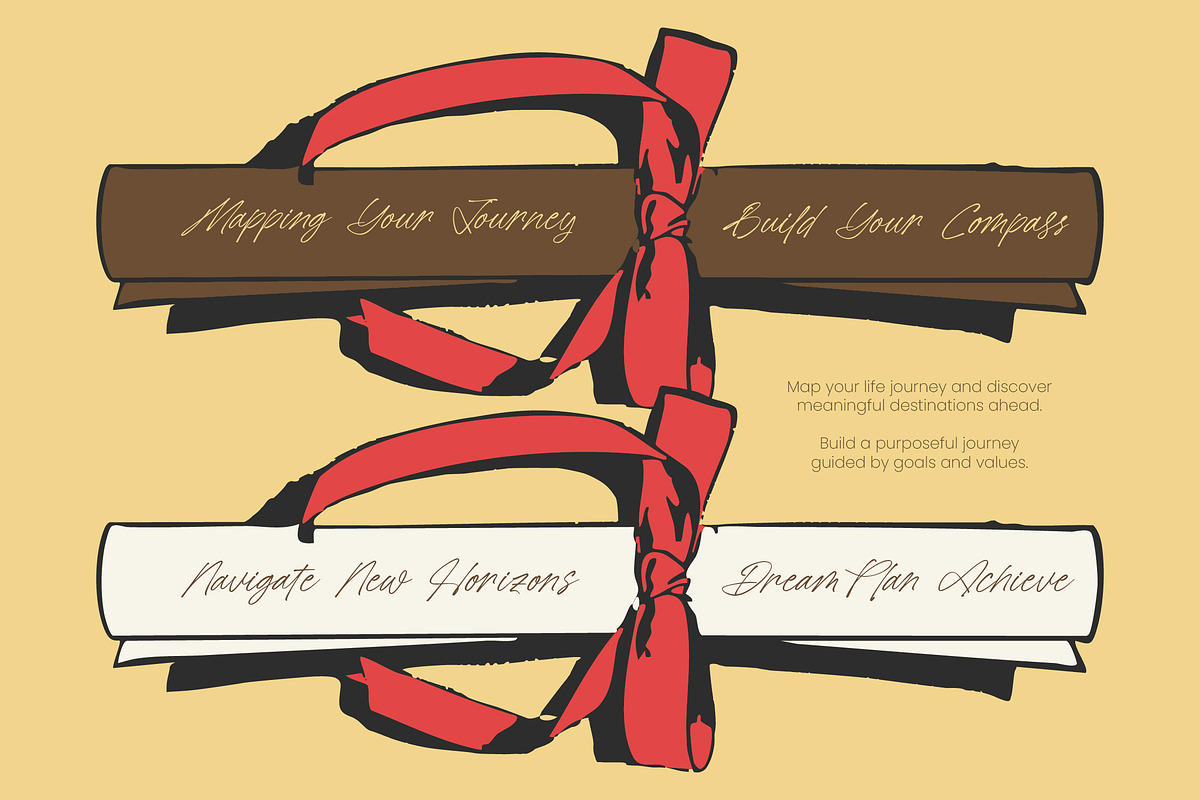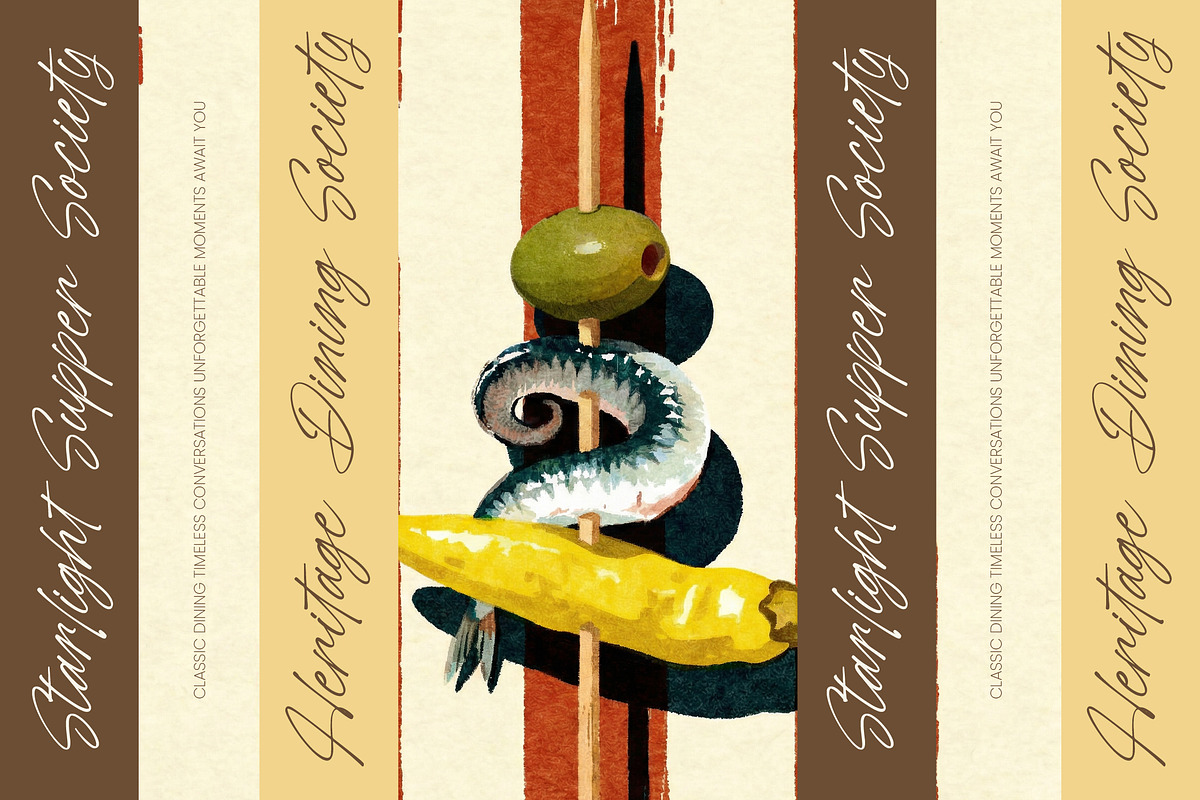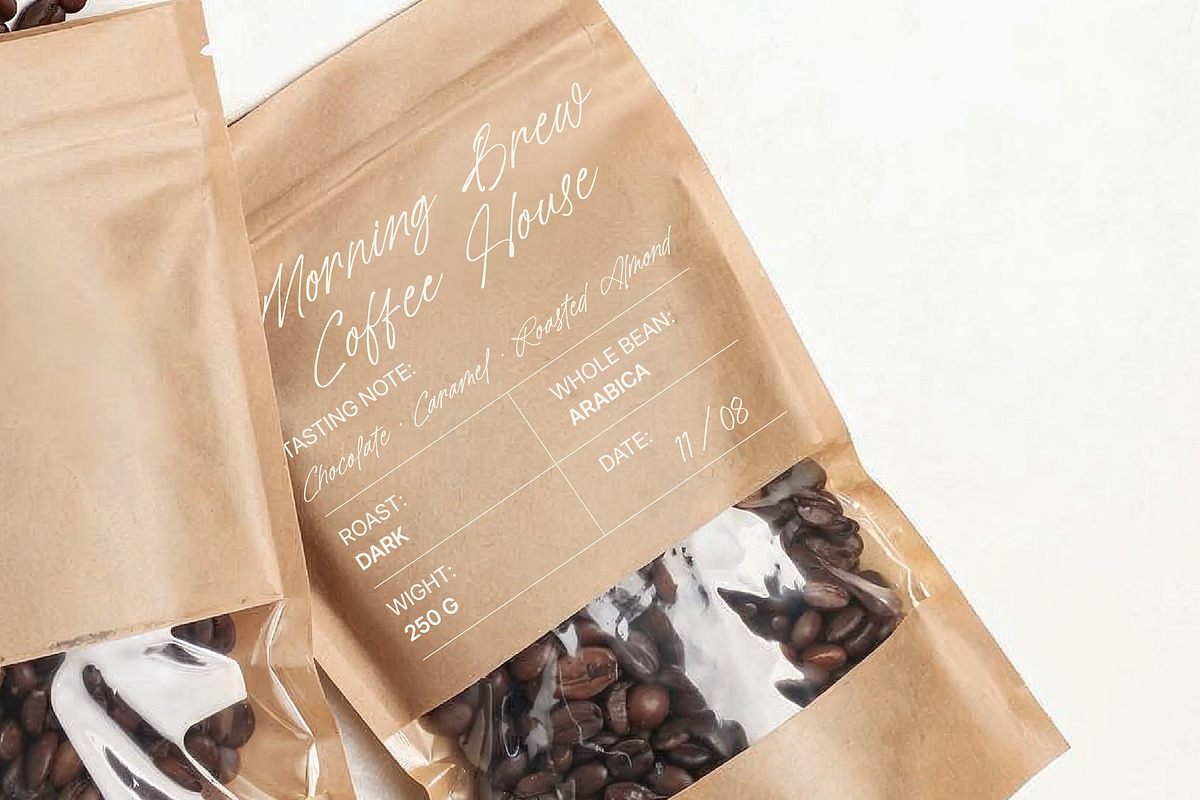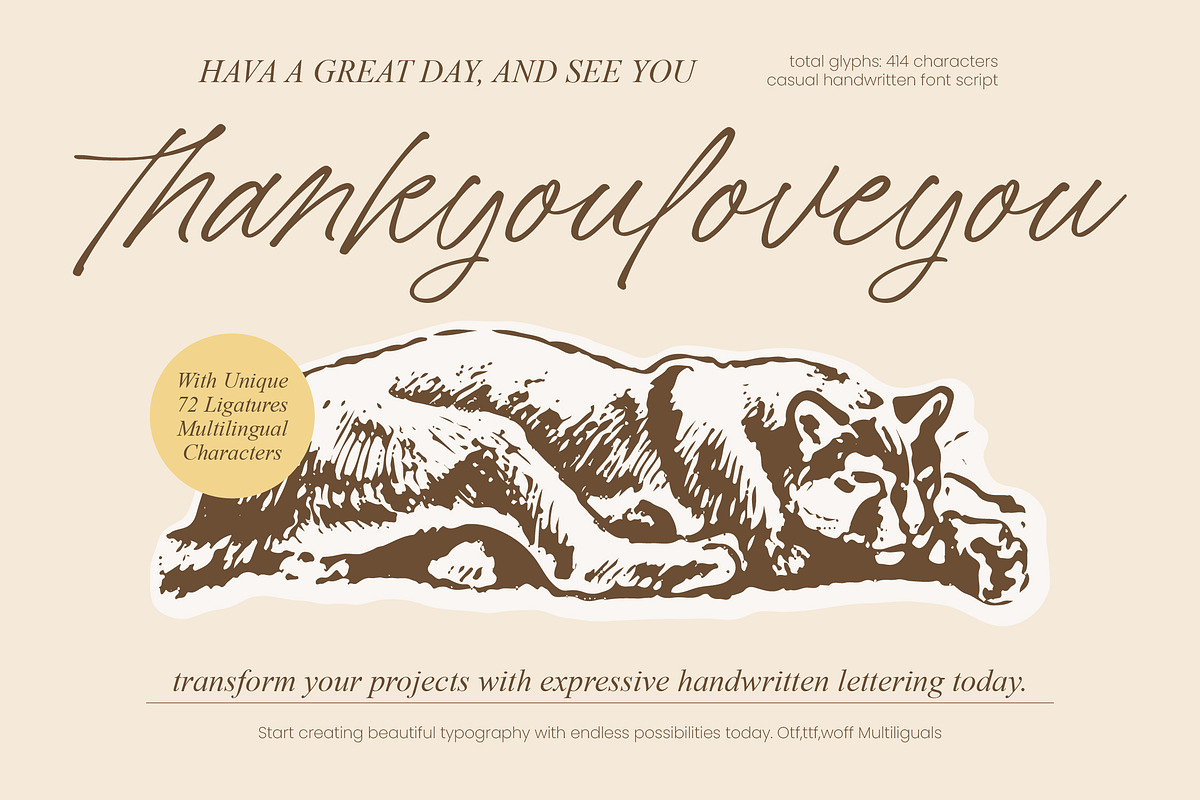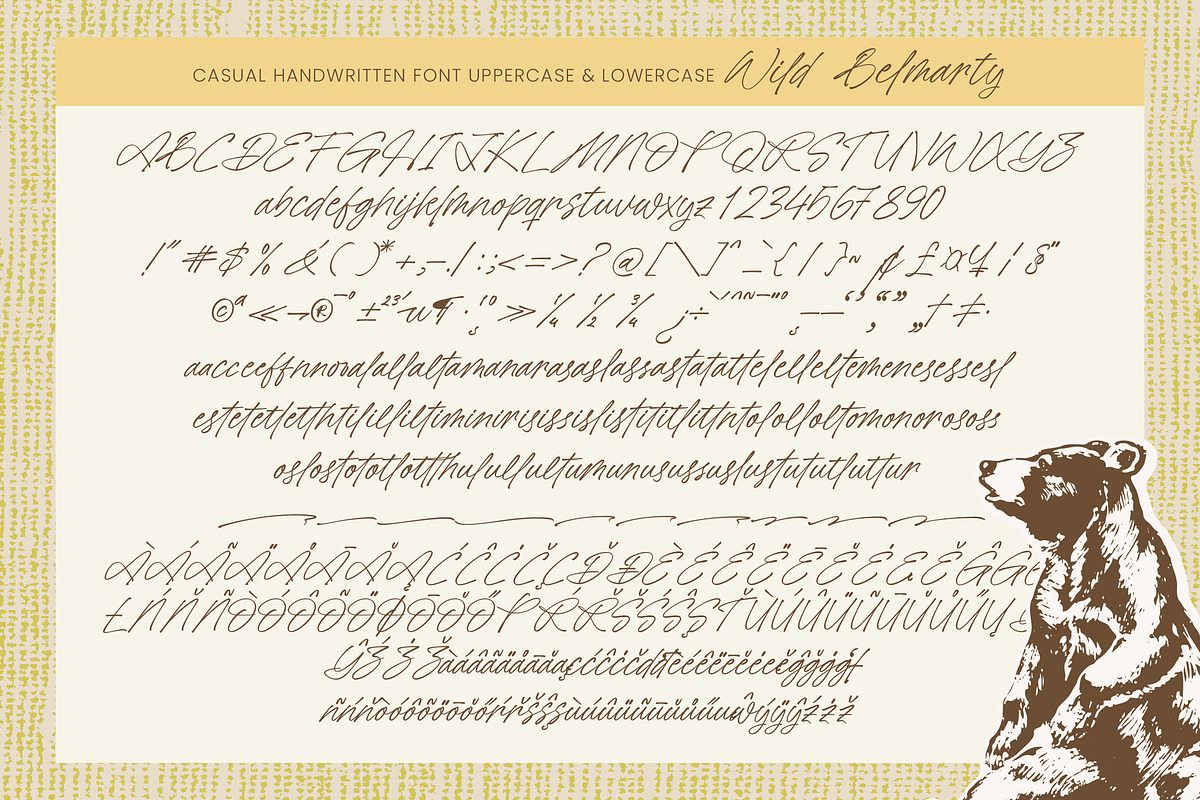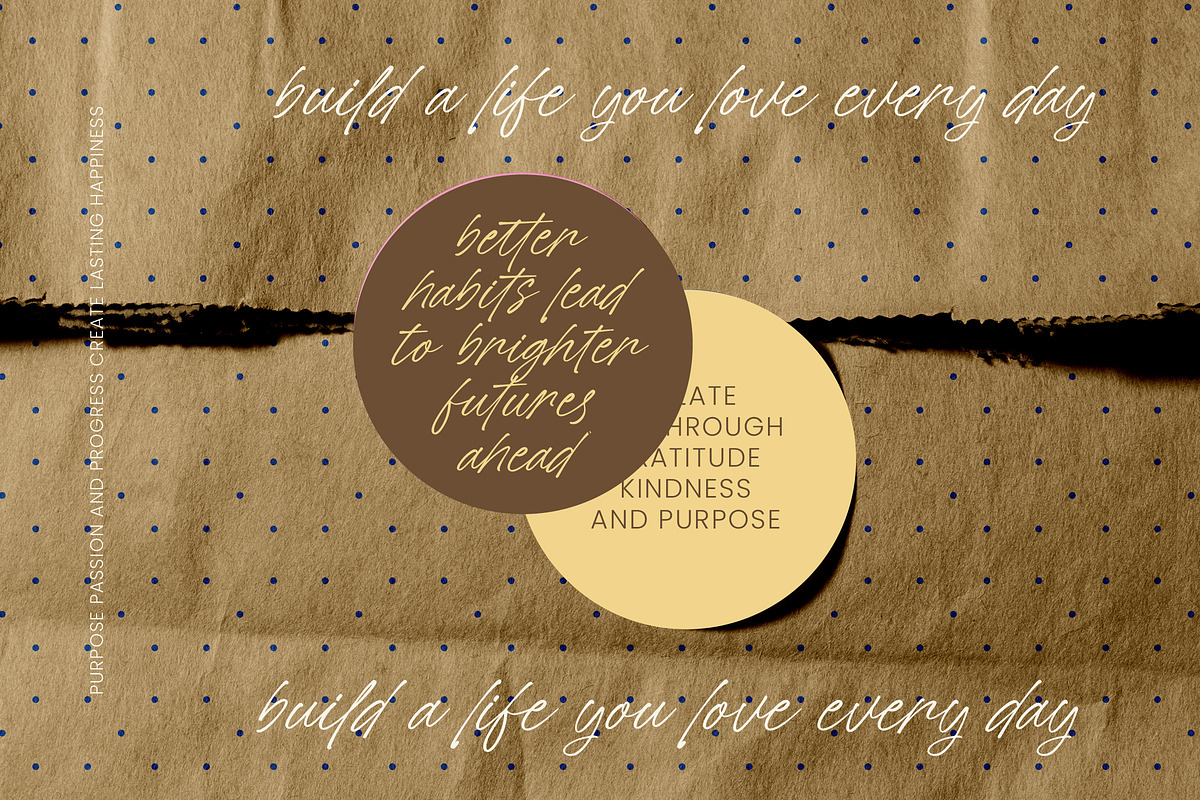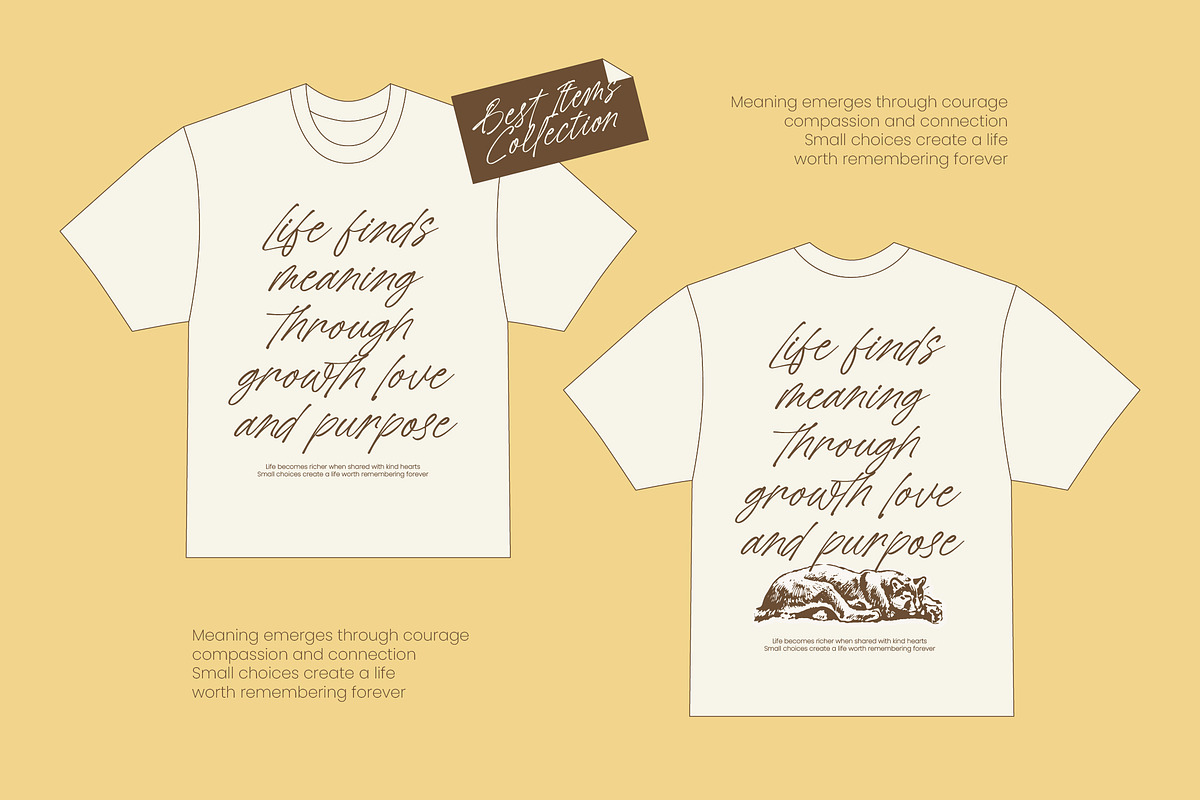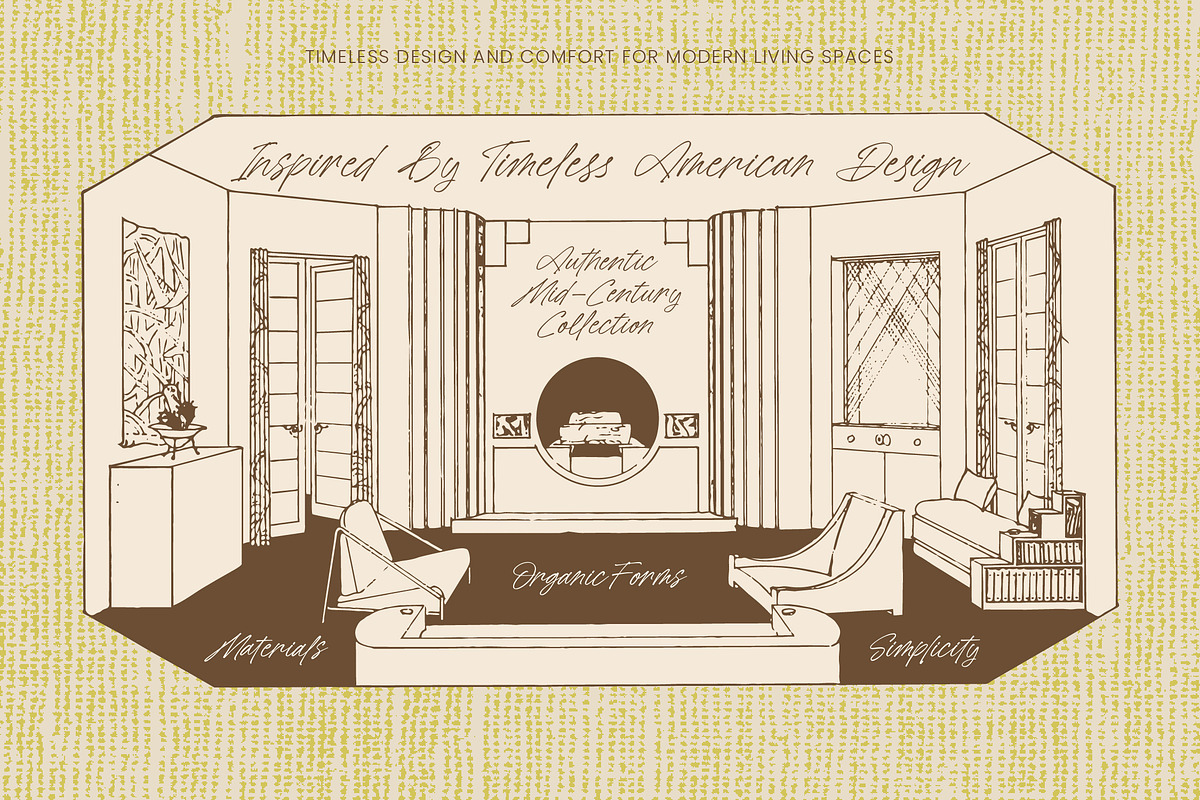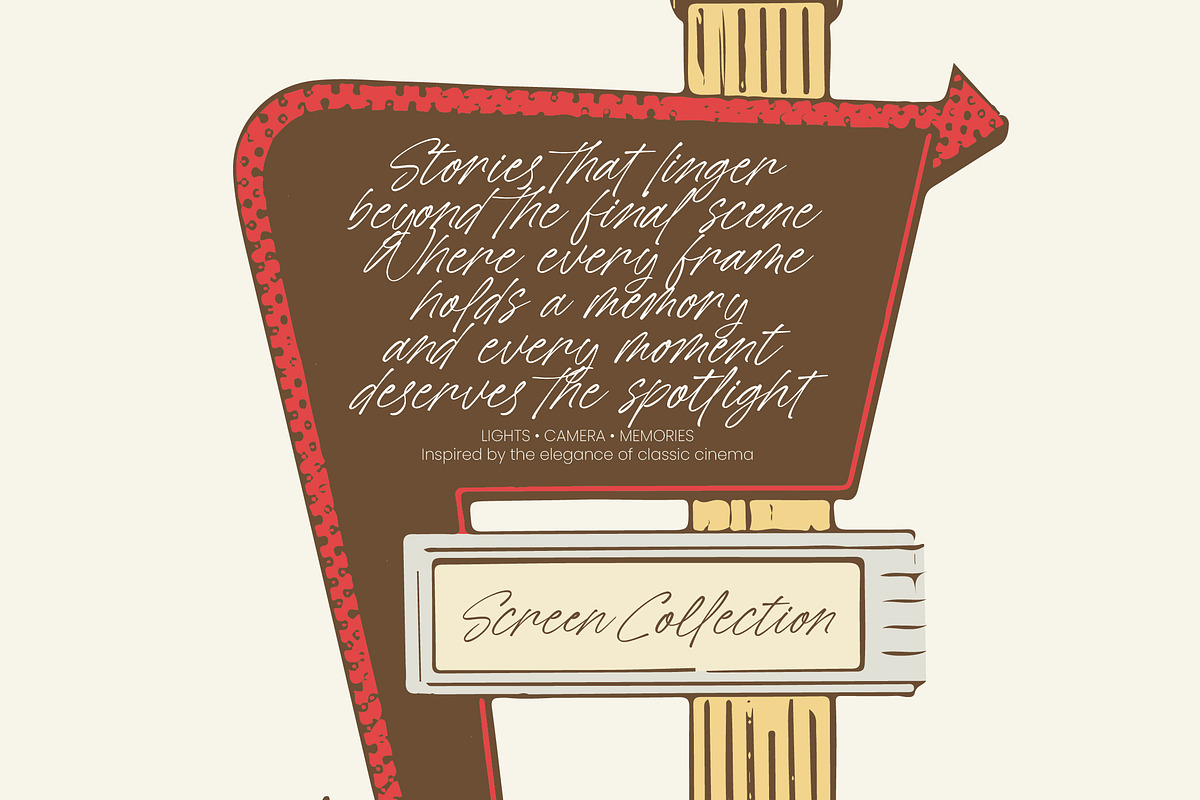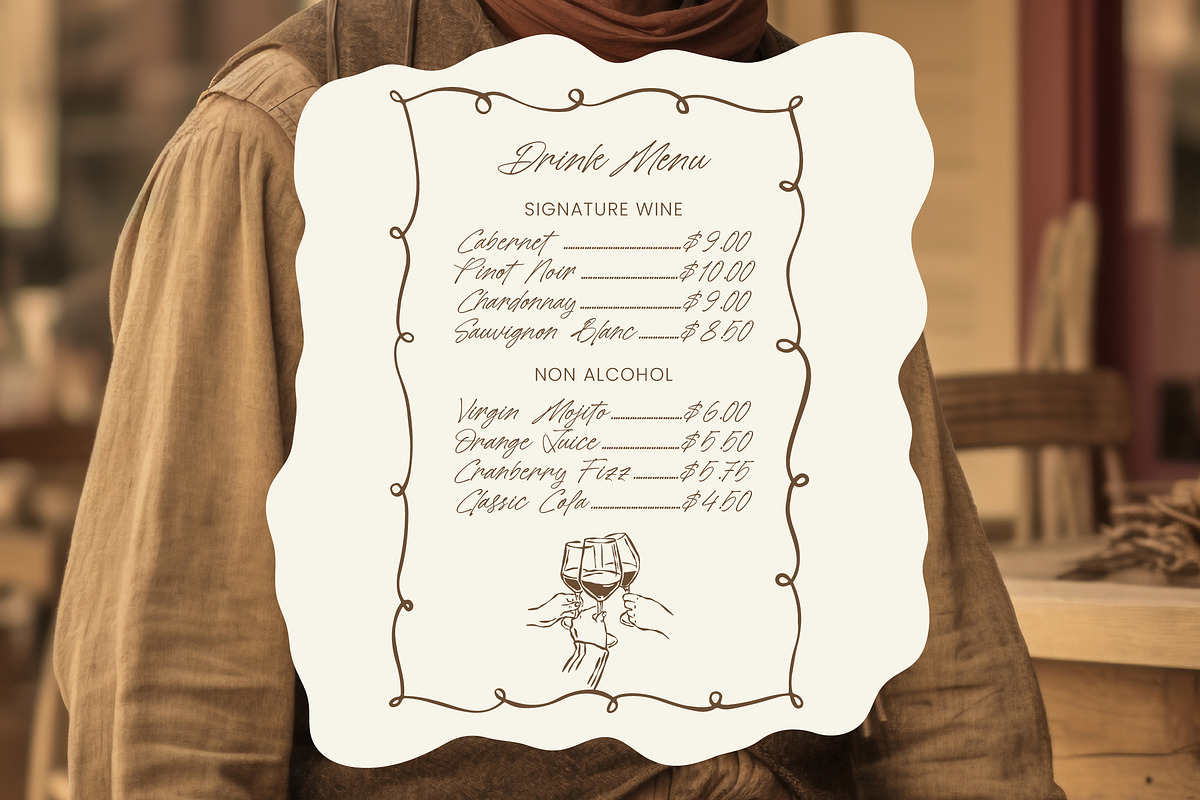
Wild Belmarty Casual Handwritten
**Wild Belmarty - Casual Handwritten Font , **Elevate your creative vision with an effortless touch of human artistry. Wild Belmarty - Casual Handwritten Font captures a stunningly authentic script aesthetic, blending dynamic flow with casual elegance. Its organic strokes and expressive lettering provide a handcrafted feel that instantly bridges the gap between digital precision and artistic personality. This typeface is designed for creators who demand a high-impact visual identity that feels both personal and professional.
Break through linguistic barriers and reach a global audience with ease. With its extensive multilingual support, Wild Belmarty - Casual Handwritten Font adapts seamlessly across global markets, making it incredibly versatile for international projects. Boasting over 414 total glyphs and 72 unique ligatures, it ensures that your message remains cohesive and visually stunning regardless of the language or region, providing a reliable typographic solution for modern designers.
Unlock limitless possibilities for high-end branding and sophisticated design. Wild Belmarty - Casual Handwritten Font is the perfect choice for luxury branding, premium packaging, and editorial layouts that require a distinctive signature style. Whether it is used for social media graphics, lifestyle photography overlays, or bespoke invitation suites, its fluid silhouettes add a layer of exclusive craftsmanship that sets your work apart from the competition.
Invest in a versatile asset that transforms standard text into a memorable experience. By integrating Wild Belmarty - Casual Handwritten Font into your toolkit, you are securing a professional-grade asset optimized for modern marketing and compelling brand storytelling. Its clean character sets and functional design ensure legibility without sacrificing its spirited character, making Wild Belmarty - Casual Handwritten Font an essential addition for any designer seeking commercial excellence and timeless appeal.